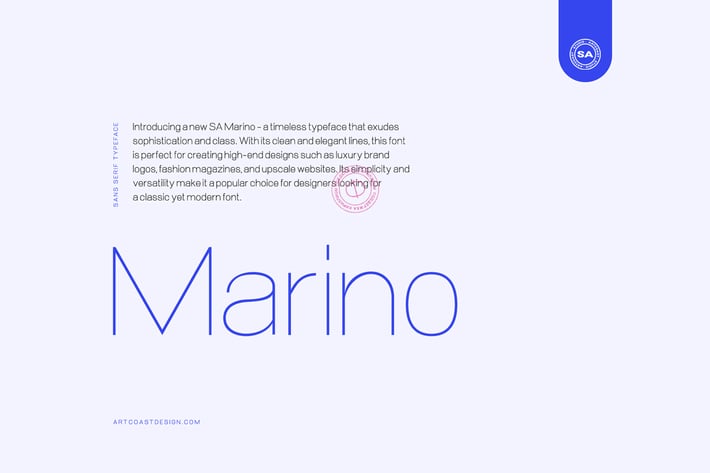
SA Marino Sans Serif Typeface
SA Marino is a brand new contemporary OpenType font family designed with both modernity and versatility in mind. Its distinctive, pleasing look is achieved through the use of smooth curves, giving the font a lot of personality. Ideal for both display and text use, SA Marino's ultra-modern appearance makes it an excellent choice for e-books, websites, user interface fonts, mobile apps, and more. With support for Latin, Extended Latin, and Cyrillic languages, SA Marino is the perfect choice for anyone looking for a modern and versatile font.
SA Marino Light
SA Marino Regular
SA Marino Medium
Cyrillic